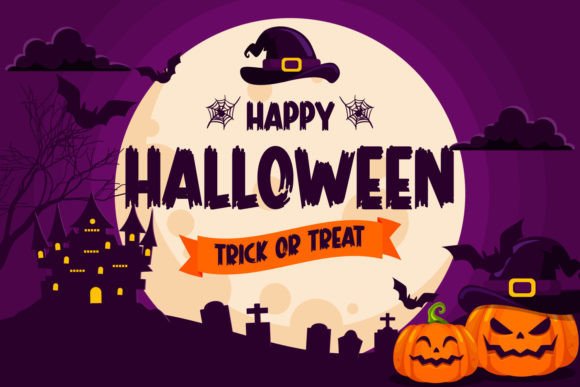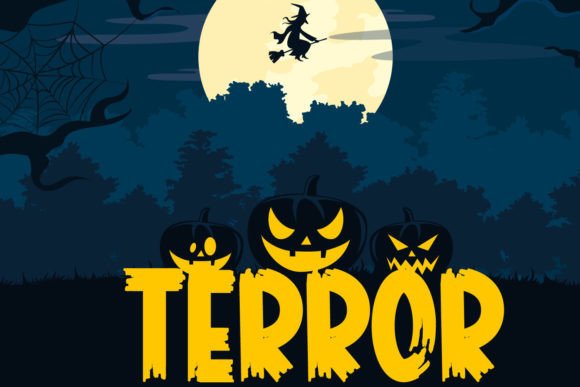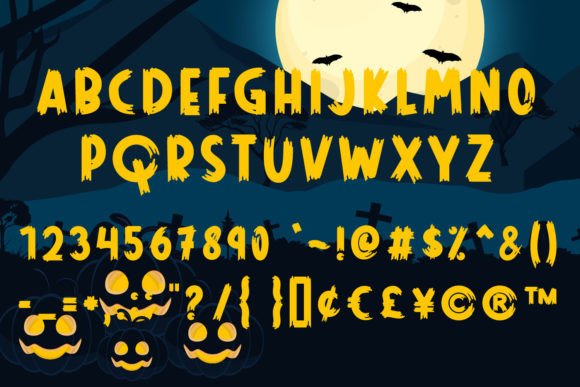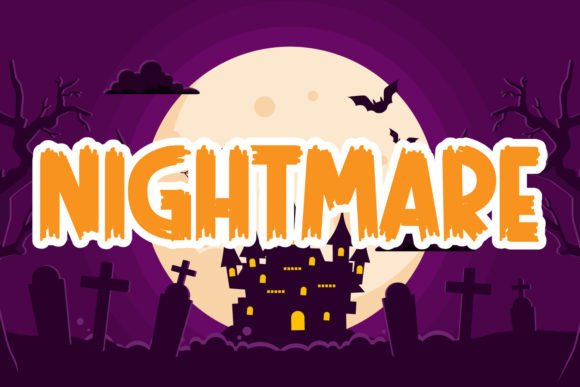
Spooky Charm in Every Line: Uncovering the Magic of Creepy Font
You know that moment when a font clicks, and your design instantly comes to life? It’s a feeling that’s hard to describe, but it’s the spark that ignites creativity and drives your vision forward. For designers, it’s a moment of pure joy, and it’s exactly what the Creepy Font is designed to deliver. This playful Halloween display font is more than just a novelty – it’s a versatile tool that can elevate any design project with its unique, trendy charm.
With its quirky personality and modern aesthetic, the Creepy Font is a valuable asset for any designer looking to add a touch of whimsy to their work. Whether you’re creating a spooky Halloween campaign, a festive holiday card, or simply a fun social media graphic, this font is sure to bring a smile to your audience’s faces. Its potential to enhance any creation is undeniable, making it a must-have addition to any font library.
- Font Family: Creepy Font is a sans-serif typeface designed to evoke a sense of eeriness and unease. It is available in several font families, including Regular, Italic, Bold, and Bold Italic.
- Unique Characteristics: Creepy Font features a unique blend of geometric and organic shapes, with bold lines and sharp angles that give it a sense of tension and unease.
Review: Creepy Font
Overall, I’d say that “Creepy Font” is a unique and intriguing addition to any designer’s toolkit. ✨ Its ability to add a sense of eeriness and unease to text-based content is certainly effective in certain contexts.
The font’s bold, distressed aesthetic is reminiscent of old, worn-out signs and adds a layer of character to any design. ✨ Its irregularities and imperfections make it feel hand-crafted, which can be a major plus for designers looking to create a sense of authenticity.
- ⚠️ Readability can be a major issue with “Creepy Font”. The irregularities and distortions can make it difficult to read, especially for large blocks of text.
- ⚠️ The font’s aesthetic may not be suitable for all types of content. It’s best used in contexts where a sense of unease or eeriness is desired, such as in horror-themed designs or atmospheric branding.
Overall, I’d say that “Creepy Font” is a great addition to any designer’s toolkit, but it’s best used in moderation and in contexts where its unique aesthetic can shine.